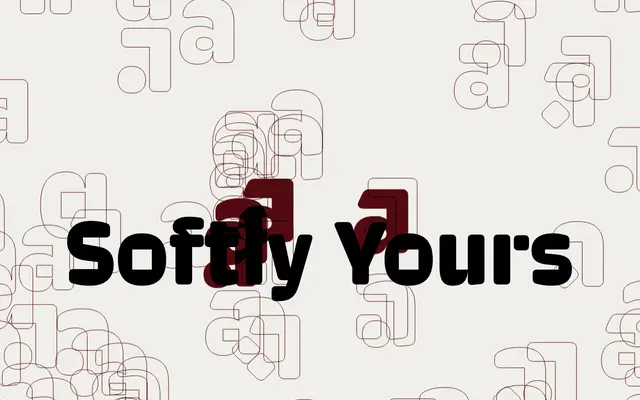
Softly Yours
Rosetta · David Březina · 2025
A rounded display sans sold in exclusive per-customer variants, so no two buyers can own the same version of the typeface.
Designed by David Březina and released in May 2025, Softly Yours is a conceptual type system that upends conventional font licensing by generating over one million distinct variants from a fixed set of swappable design features. Nine variants are offered daily; once purchased, a variant is retired from sale permanently, ensuring exclusivity. Seven weights from Light to Black are available, and alternates cover features such as foot terminals, arch counters, dot forms and letter-specific alternates for a, c, f, g, j, r, t, ampersand, asterisk and Y.
A soft, rounded sans-serif with playful informal character. The rounded terminals and friendly proportions place it firmly in the rounded sans subcategory, oriented toward display and editorial use.